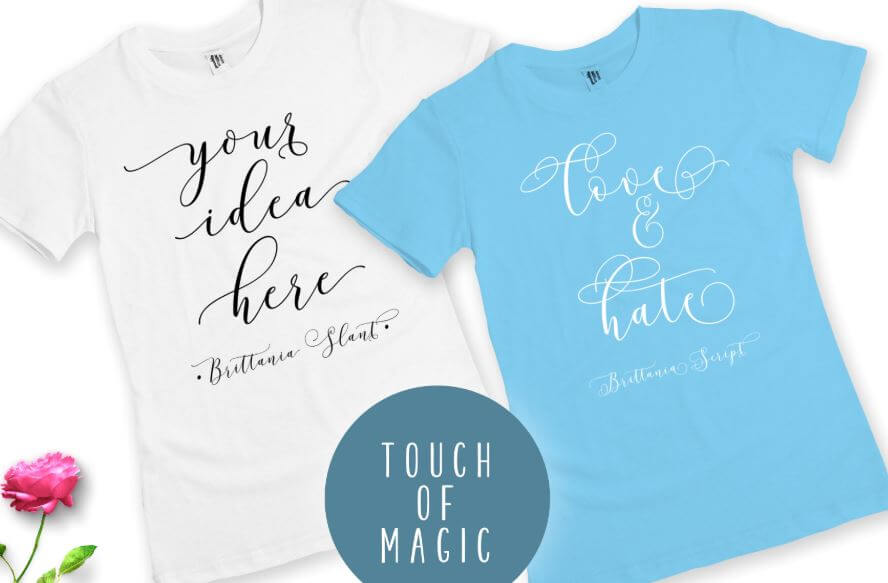
Brittania Script Font
Brittania Script Font is one of the most important packages available on the market, together with 214 fonts. I’m hoping we are able to additionally layout the high-quality paintings using this package. introducing Brittania font.
TheĀ dafont free font own family is a difficult version of the famous intro. You want to make a greeting card or a package layout, or perhaps an emblem identity? experience loose to play with all of the patterns and shapes.
Style Of Brittania Script Font